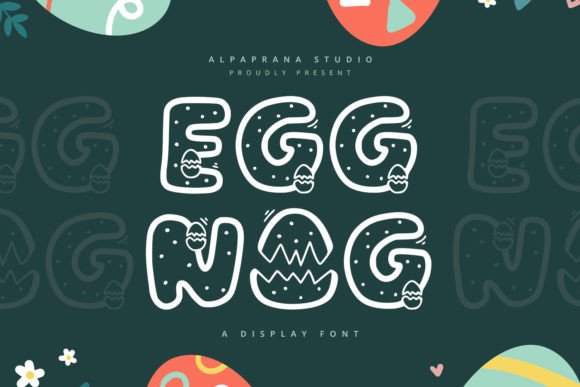
Eggnog Font
Introducing Eggnog Font, a Display Font of Delectable Charm!
Dive into the world of Eggnog Font, a captivating display font that exudes cuteness and playfulness in every letter. This font is a designer's delight, perfect for adding a touch of whimsy and uniqueness to a wide range of creative projects.
With its charming and playful vibe, Eggnog Font is a versatile choice for branding, logo design, lettering, logotype, clothing, posters, magazines, and packaging. Its whimsical nature makes it an ideal font for adding a personal touch to invitations, greeting cards, and other special occasions.
Eggnog Font's versatility extends beyond its aesthetic appeal. Its clean lines and crisp edges ensure optimal readability, making it suitable for body text and headings alike. Its unique character lends a touch of exclusivity to any project, whether it's a marketing campaign, a personal blog, or a creative presentation.
With Eggnog Font, you have a font that is as versatile as it is charming. Its playful nature adds a touch of whimsy to any project, while its clean lines and crisp edges ensure readability. Whether you're creating branding materials, designing posters, or personalizing invitations, Eggnog Font is the perfect choice for adding a unique and unforgettable touch.
Unlock the full potential of your creative vision with Eggnog Font. Let its playful charm captivate your audience and leave a lasting impression. Experience the magic of Eggnog Font today and elevate your designs to new heights of cuteness and creativity!